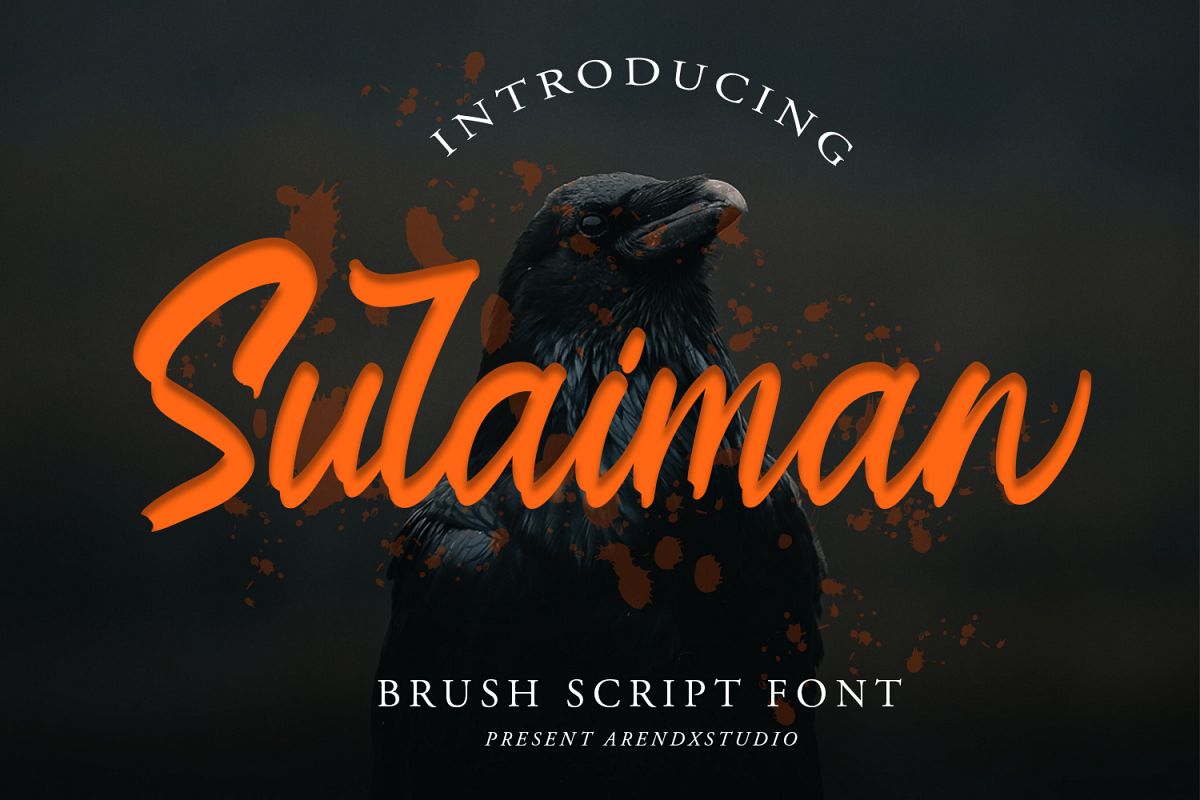
Sulaiman Font
Sulaiman
Sulaiman is a handwritten script font that is designed to suit the needs of consumers who focus on the custom style
Sulaiman came with opentype features such stylistic alternates, stylistic sets & ligatures good for logotype, poster, badge, book cover, tshirt design, packaging and any more.
Features : • Character Set A-Z • Numerals & Punctuations (OpenType Standard) • Accents (Multilingual characters) • Ligature • AlternateThere it is! I really hope you enjoy it - comments & likes are always welcome and accepted. More importantly, don't hesitate to send a message if you have a problem or question.